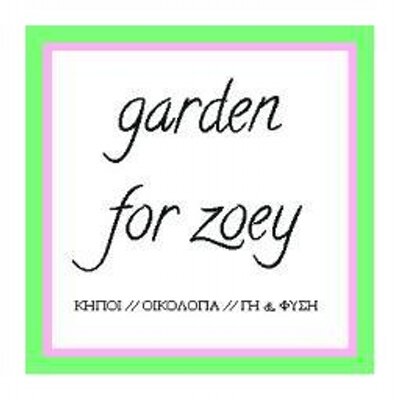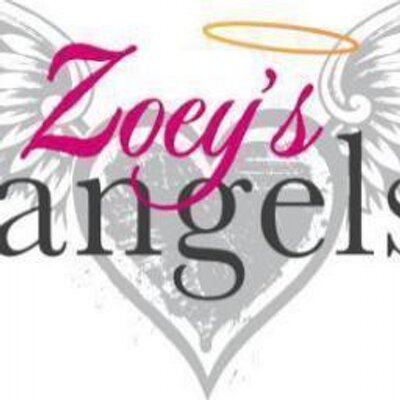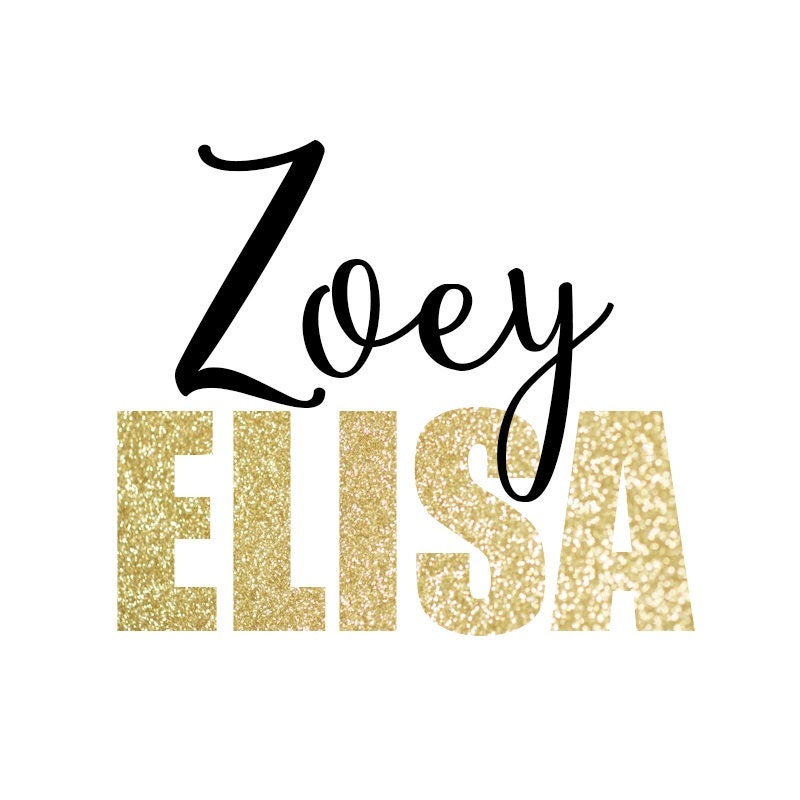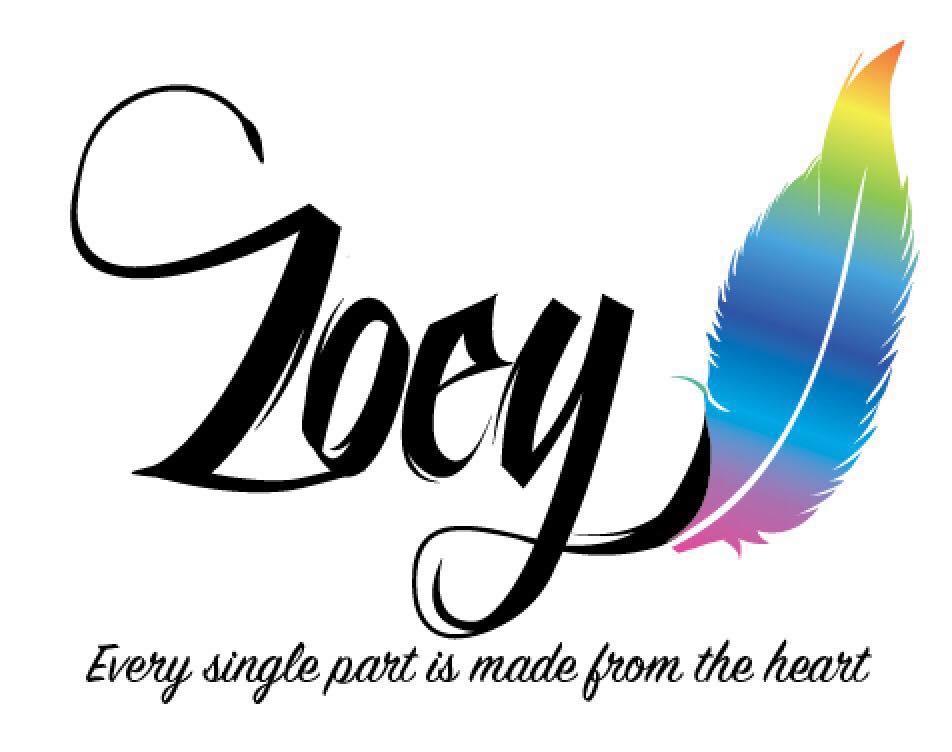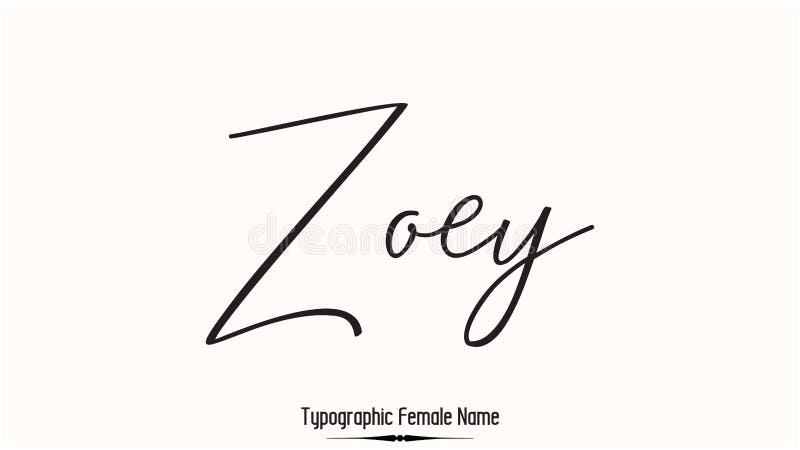
Calligraphy zoey in different fonts. Google Fonts is a library of 1052 free licensed font families and APIs for conveniently using the fonts via CSS and Android. Arabic calligraphy styles have parallels to scripts employed during the 8th century of the Islamic epoch. These decorations can occur in various different forms - flowers swirls corners lines stars etc.
Therefore it is quite nice to add decorations that personalize your calligraphy style and make it more recognizable and unique. Lamar pen is a stunning calligraphy font designed by Mirabeau Buonaparte Lamar is a fascinating style with words combining in an elegant and stylish way. The results are shown in the image.
Calligraphy is an ancient writing technique using flat edged pens to create artistic lettering using thick and thin lines depending on the direction of the stroke. We have collected the most popular 20 kinds of calligraphy fonts. There are a number of different fonts typically available in many computer programs such as Times New Roman and Courier.
Feb 13 2016 - Explore Cindy Browns board Zoe cursive hand writing on Pinterest. Popular fonts that fulfil this brief include Calligraphia Latina and Calligraphic Birds. Google Fonts is a library of 1052 free licensed font families and APIs for conveniently using the fonts via CSS and Android.
However if youre using an older. Cursive also known as joint writing or running writing or handwriting is any style of penmanship in which the symbols of the language are written in a conjoined andor flowing manner generally for the purpose of making writing faster. The Hearted one features all capital as well as some lowercase letters decorated with heart shapes while the Heartless one is a little less briskly with some straightened forms and without the decorative hearts.
Nelson the scriptina pro is a beautiful font crafted to fit any design layout. Note of the author. See more ideas about cursive writing cursive writing.
In the Arabic Latin and Cyrillic alphabets many or all letters in a word are connected sometimes making a word one single complex stroke. The support for all of these unicode letters is growing every day so in a couple of months you might find that theyll be visible. Calligraphy has become increasingly popular in the past years.
Certain styles are common for writing or reading. Submit a font Tools. For different scripts for example Chinese or Arabic they have developed their own way of calligraphy.
Download them for use in your digital products for Android iOS and web. Download them for use in your digital products for Android iOS and web. Cute Letters designed by German type designer Harald Geisler is a hand drawn font family available in two styles Cute Letters Hearted and the Cute Letters Heartless.
Calligraphy fonts resemble elegant handwriting. Download the Olivia font by Manfred Klein. Calligraphy fonts are fonts that are specifically created to resemble styles of writing referred to as calligraphy and are.
The height of calligraphy was reached in the middle age where monks developed the narrow writing style called gothic allowing more words to fit on a single line as paper was expensive at the time. Download Donate to author. Calligraphy fonts arent seen very much in the business sector.